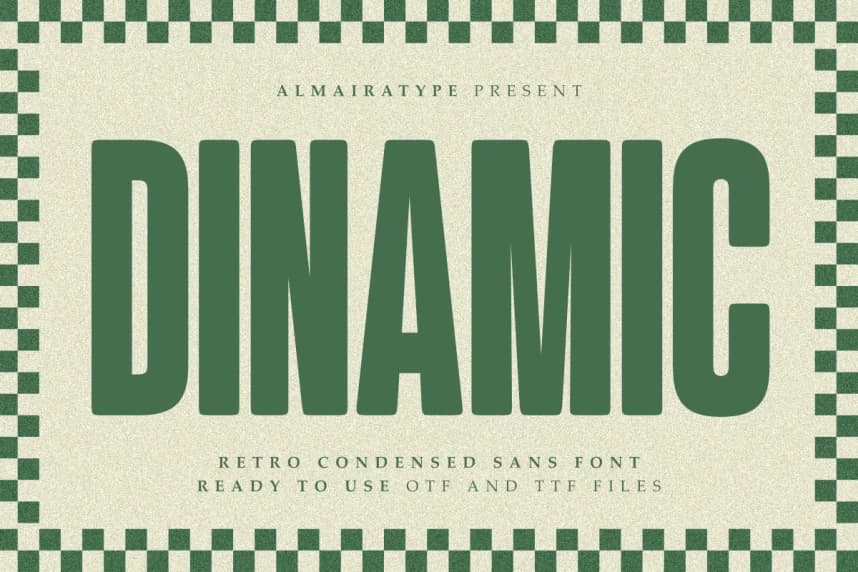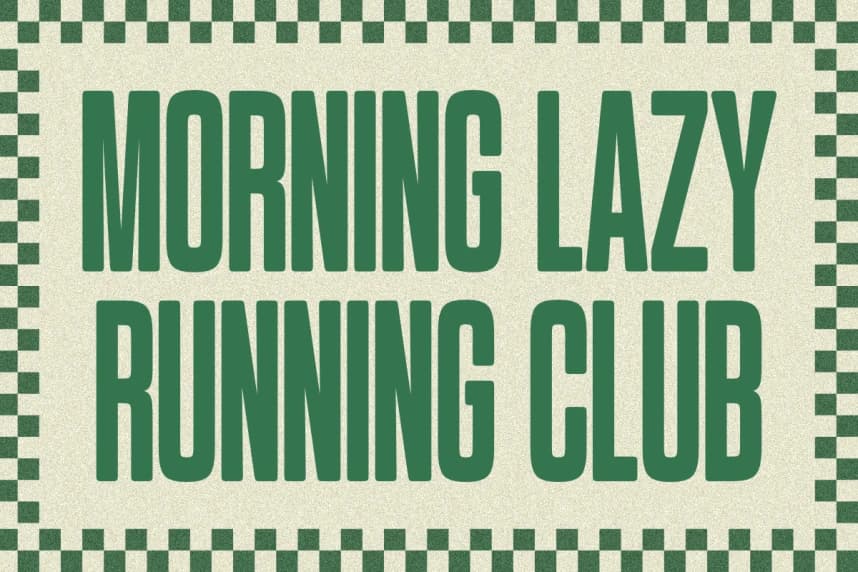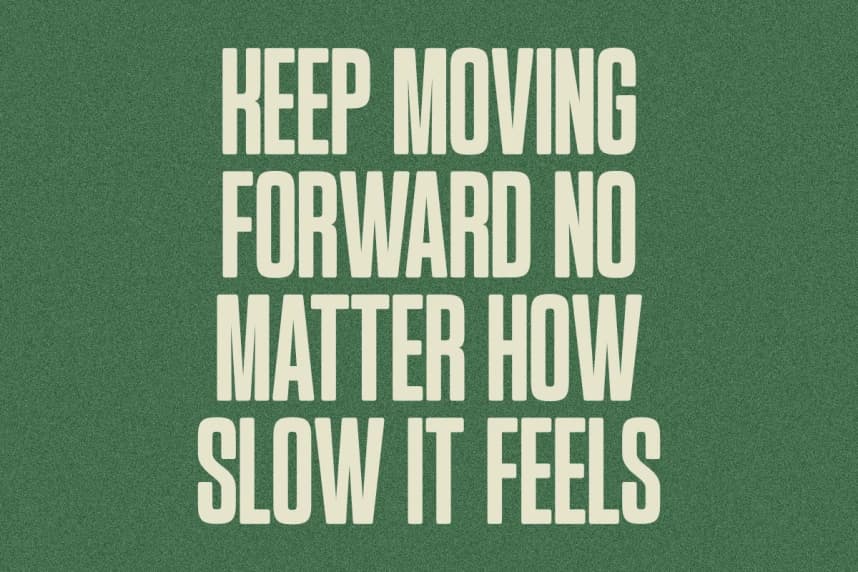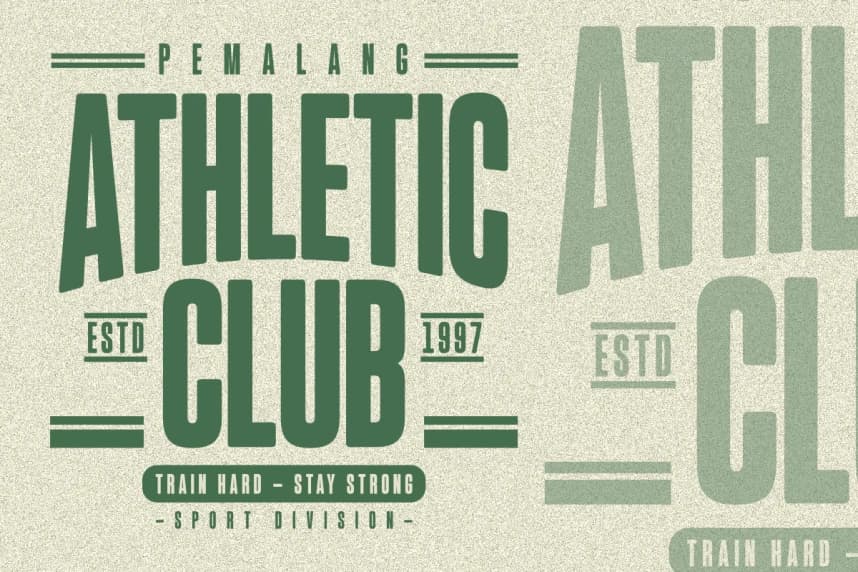
Dinamic Font
Dinamic Font is a bold and versatile retro condensed sans font that masterfully blends vintage nostalgic charm with a clean, modern minimalist aesthetic. Designed specifically for high-impact visual storytelling